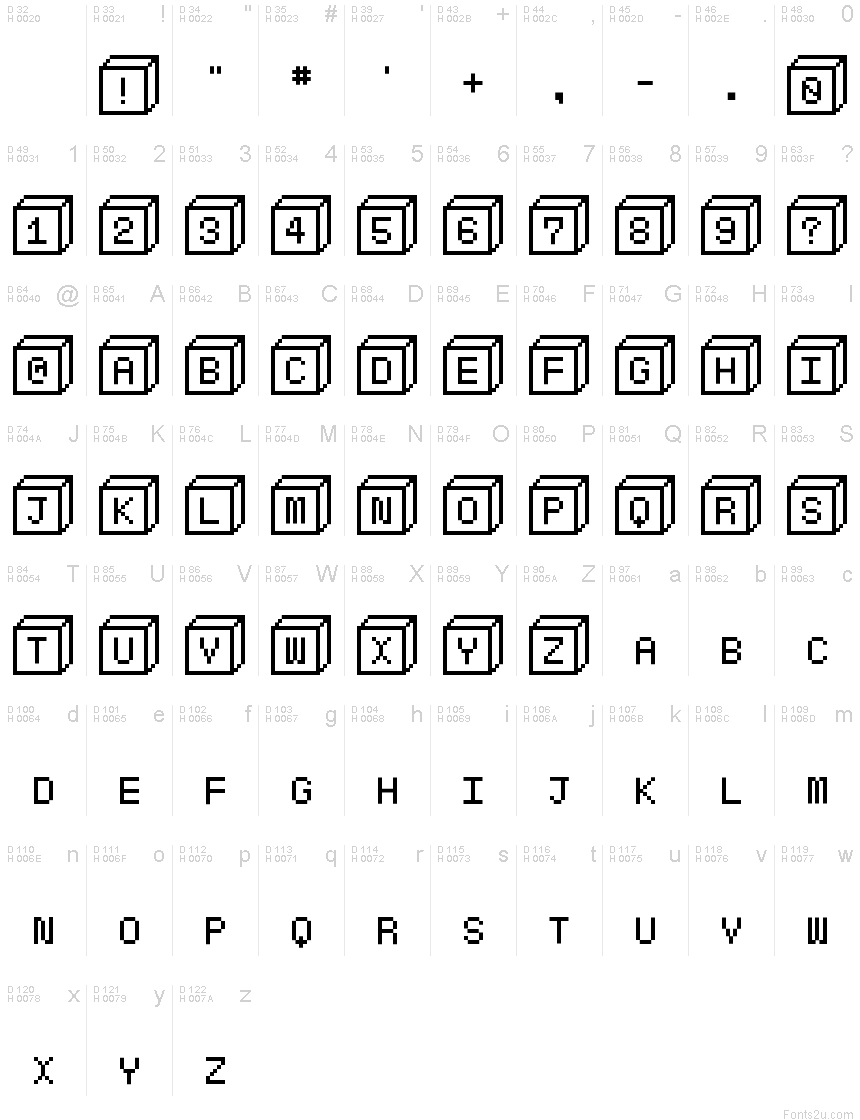
Baby blocks
Baby Blocks font by Futaba is a free pixel bitmap font with a playful, toy‑box attitude. Each letter is built from tight, square pixels, with the signature “block” frame turning the initial into a chunky baby cube. The spacing feels airy but controlled, so even in all caps the words stay legible and rhythmically neat, like neatly stacked building bricks.
Using Baby Blocks, you can give kids’ game interfaces, toy packaging, birthday invitations, nursery decor prints, classroom posters, and YouTube kids thumbnails a crisp, retro‑cute voice. This free font shines when set a bit larger so every pixel reads cleanly; pair it with a simple rounded sans-serif for body copy to keep the focus on its blocky charm.